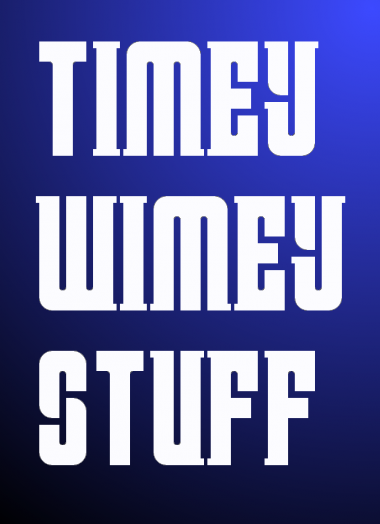
XE Timey
Welcome Back Xenophilius with this cool retrofuturistic work with a personal touch. Reminds me some Demonics and Yautja approaches.
Just wanted to be clear, this isn't an entirely original design, it's based off of the Dr. Who title.